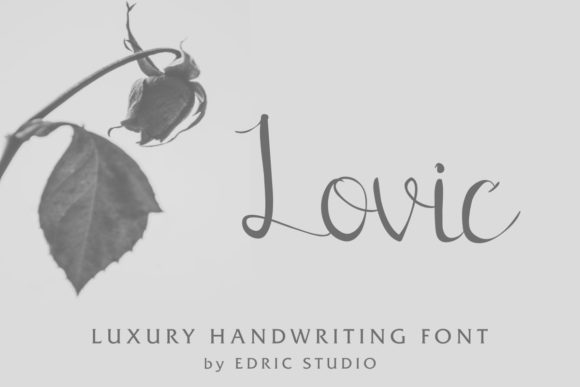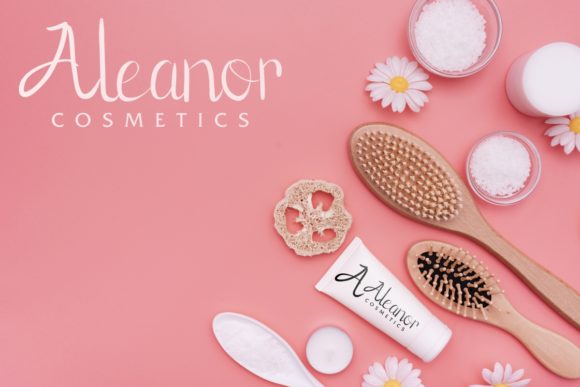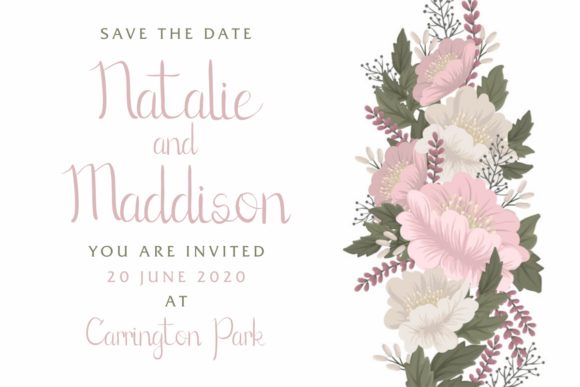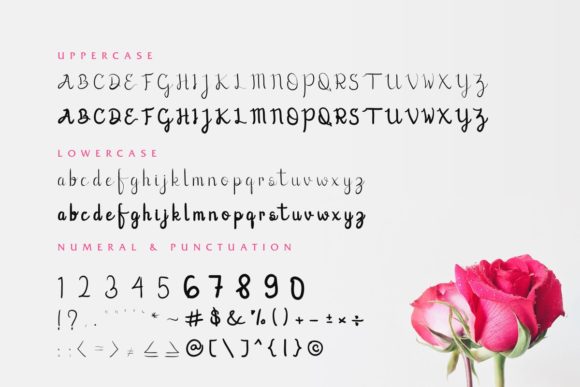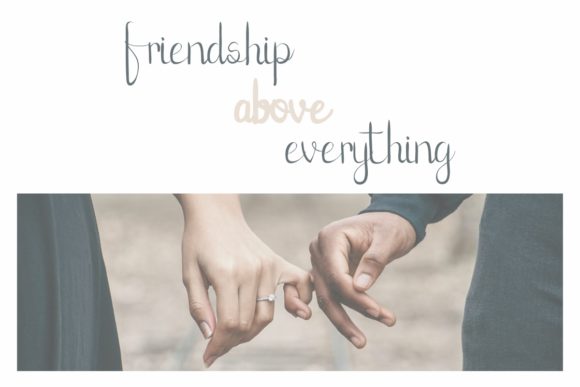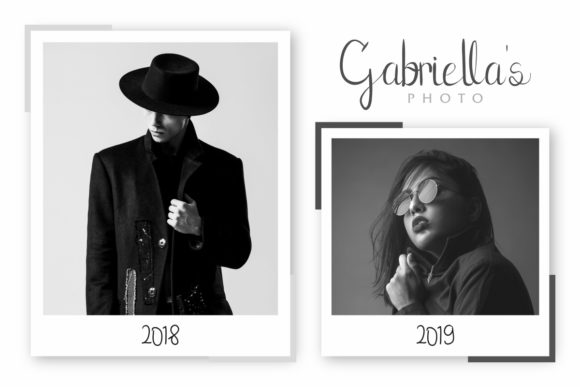
Introduction to Lovic Font
Lovic is a calligraphy script font that has an unique and elegant style.
This font will be great for all of your creative works .